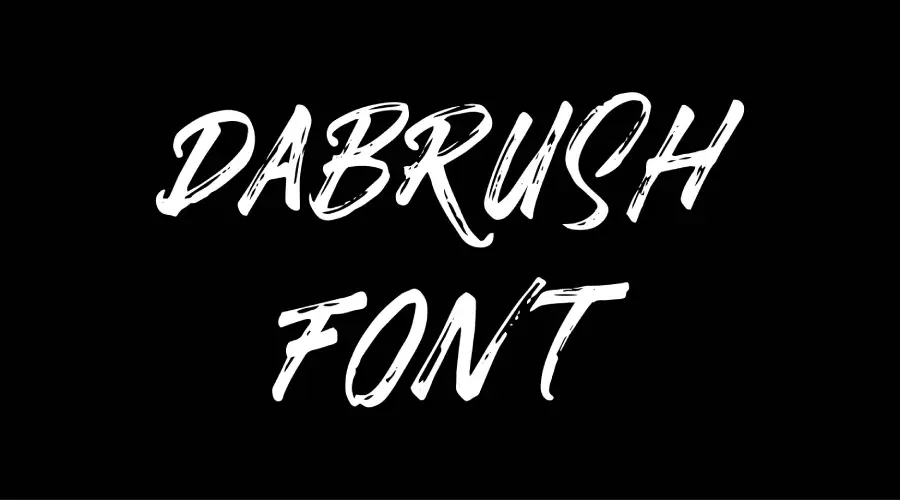
Typia Nesia has created a hand-lettered and modern brush typeface. Introduction Brush font Dabrush. Dabrush Fonth is a rustic brush typeface with jagged characters and a dry brushed look. With the black background, the typography looks fantastic. You can use this typeface straight or with a few curves; both look fantastic with this font. The Font comes in two different formats: OTF and TTF.
Dabrush Font can be used for logos, branding, t-shirts, posters, packaging, book covers, hipster designs, cards, and other brush lettering projects. The typeface has previously been successfully utilized in numerous wallpapers, so you may give it a try in yours as well.
Dabrush Font
Dabrush is a versatile and stylish brush font that is perfect for a variety of design projects. It has a hand-painted look that adds a touch of personality and charm to any design. The font is also very versatile and can be used for a variety of purposes, such as logos, branding, invitations, cards, and more. You can also check this font out on our font generator for free! So what are you waiting for? Check it out now.